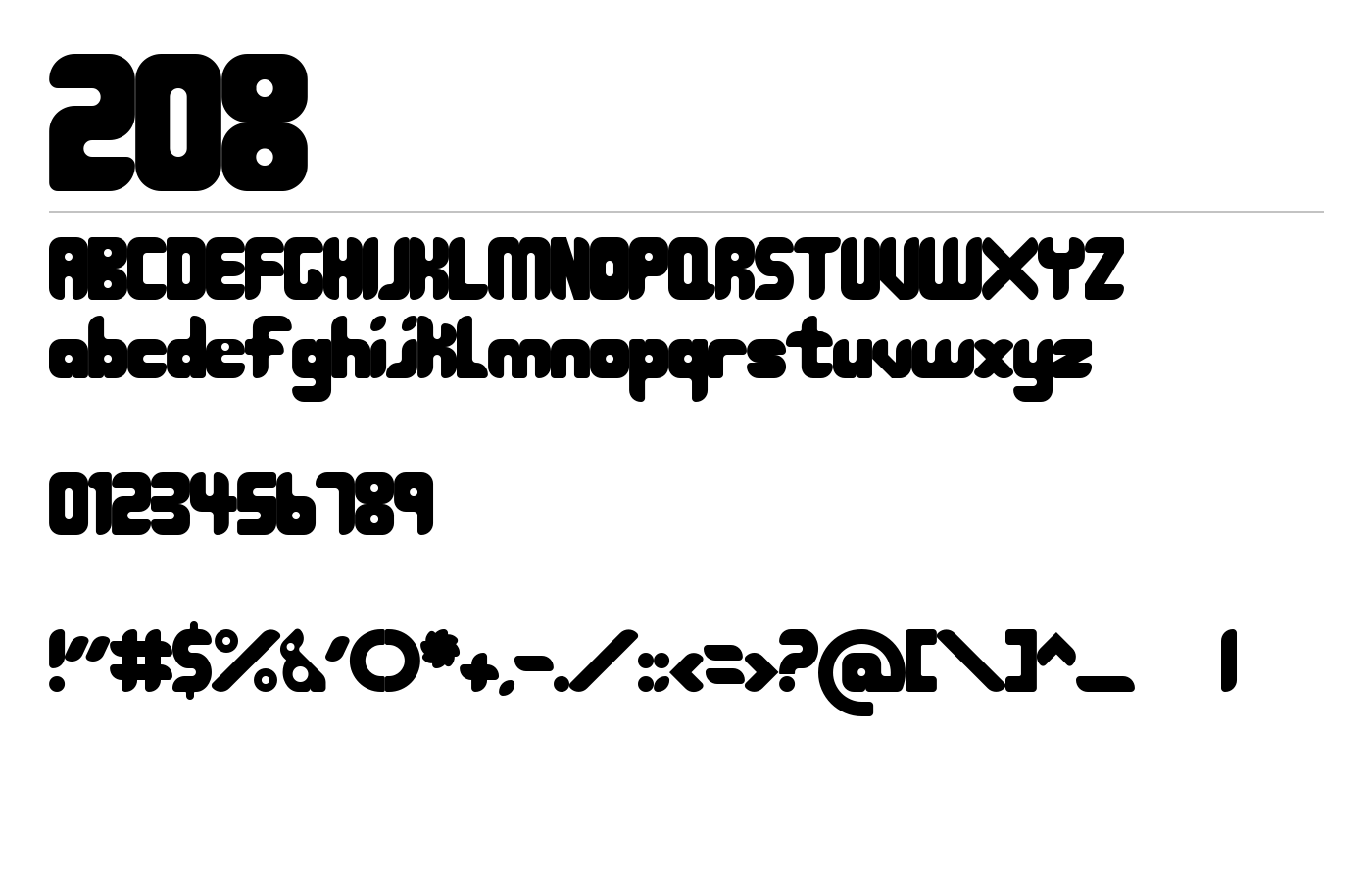
208 Font is a bold, rounded sans serif with a playful and modern vibe. Its thick strokes and smooth curves give it a friendly, approachable feel, making it perfect for eye-catching headlines, branding, and creative projects that want a fun, contemporary twist. This font works especially well in designs aimed at youthful, energetic audiences or brands looking to stand out with a unique, chunky style.
208 Font
About 208 Font
| Font family | 208 Font |
| Designer | Quan Vu |